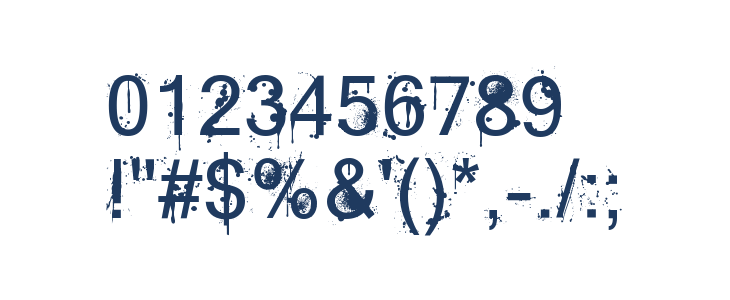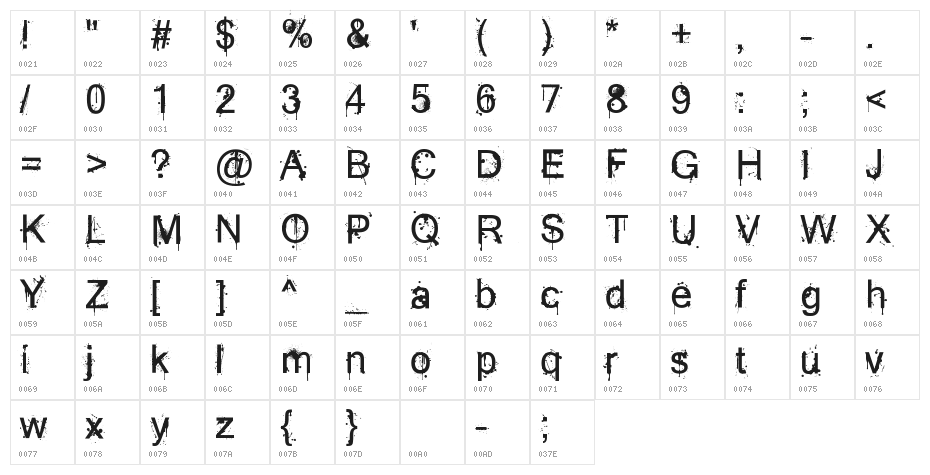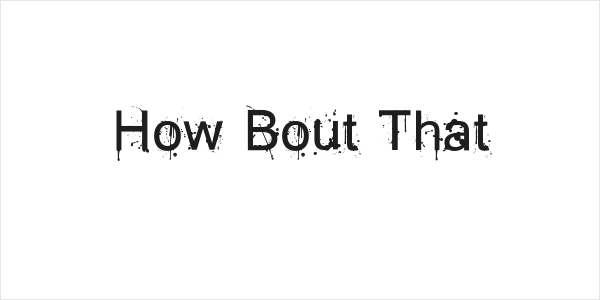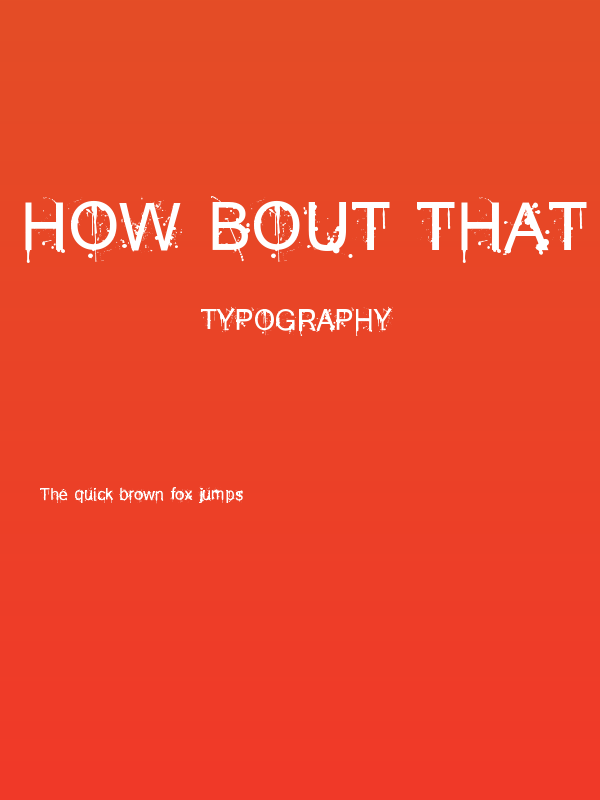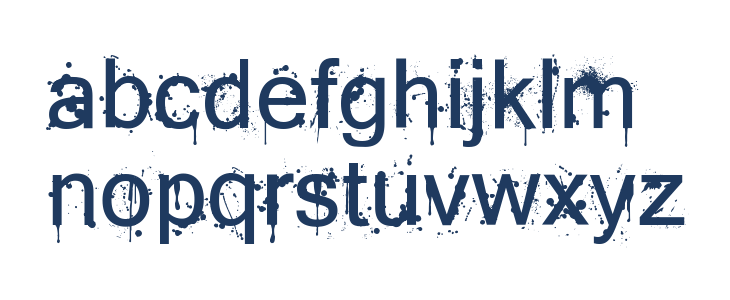
How Bout That Font
How Bout That Description
This font features a bold and edgy design with a distressed, grunge aesthetic. The characters appear as if they have been spray-painted, with drips and splatters adding to the raw, urban feel. The uppercase and lowercase letters maintain a consistent height and width, providing a uniform appearance despite the chaotic texture. Numbers and special characters follow the same stylistic approach, ensuring a cohesive look across all glyphs. The font's unique style makes it stand out, perfect for projects that require a rebellious or unconventional vibe.
Overall StyleGrunge, Urban, Edgy
Proposed ProjectsIdeal for album covers, streetwear branding, graffiti art, and edgy poster designs.